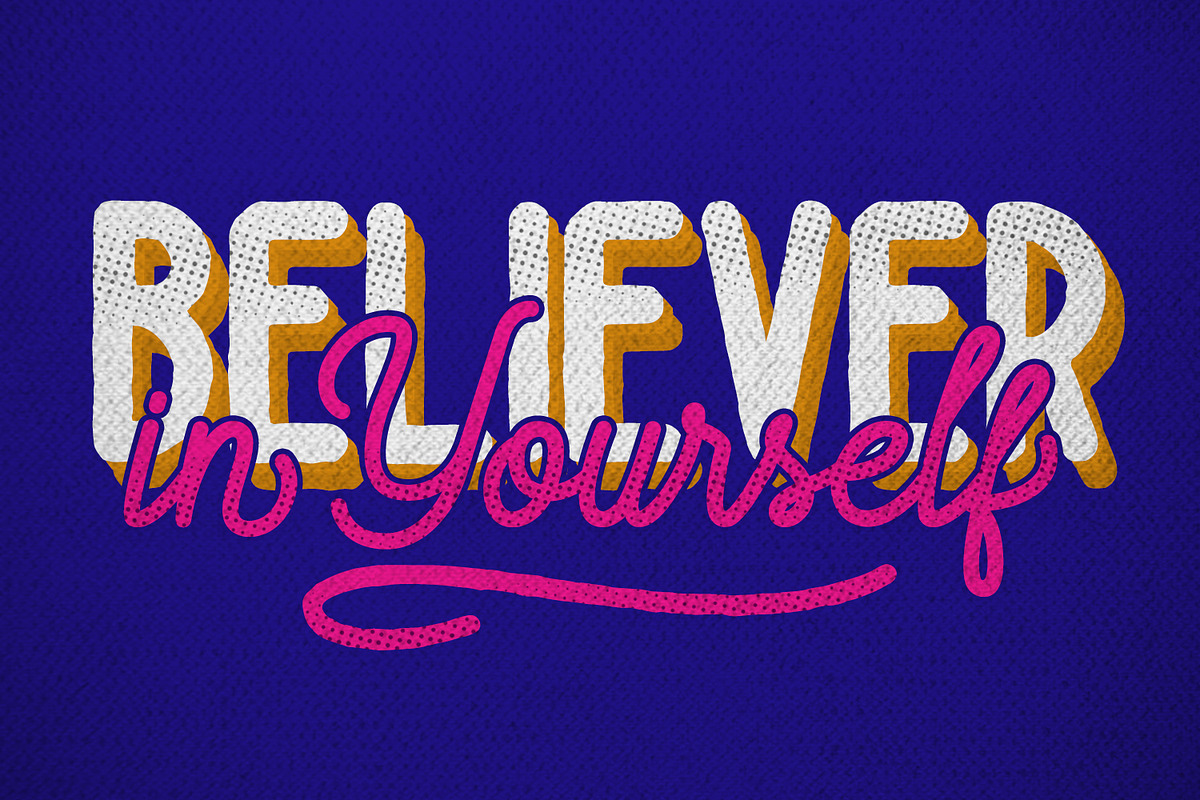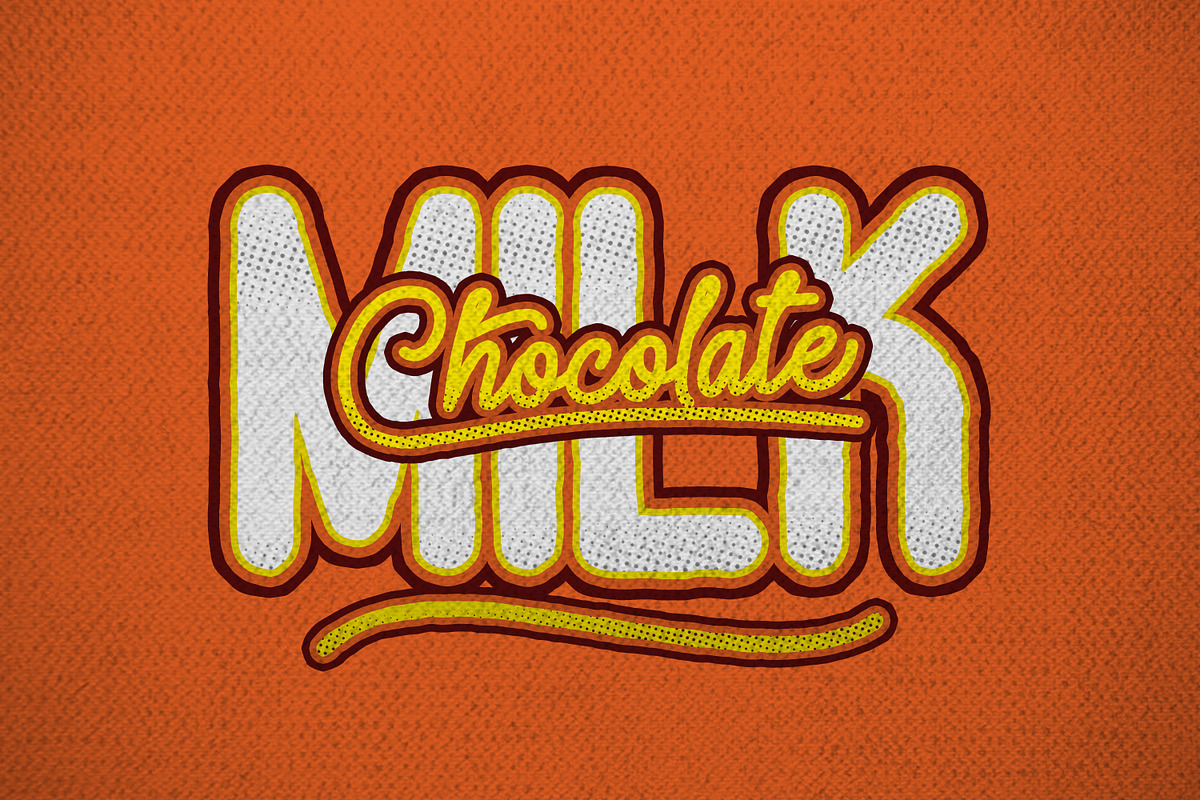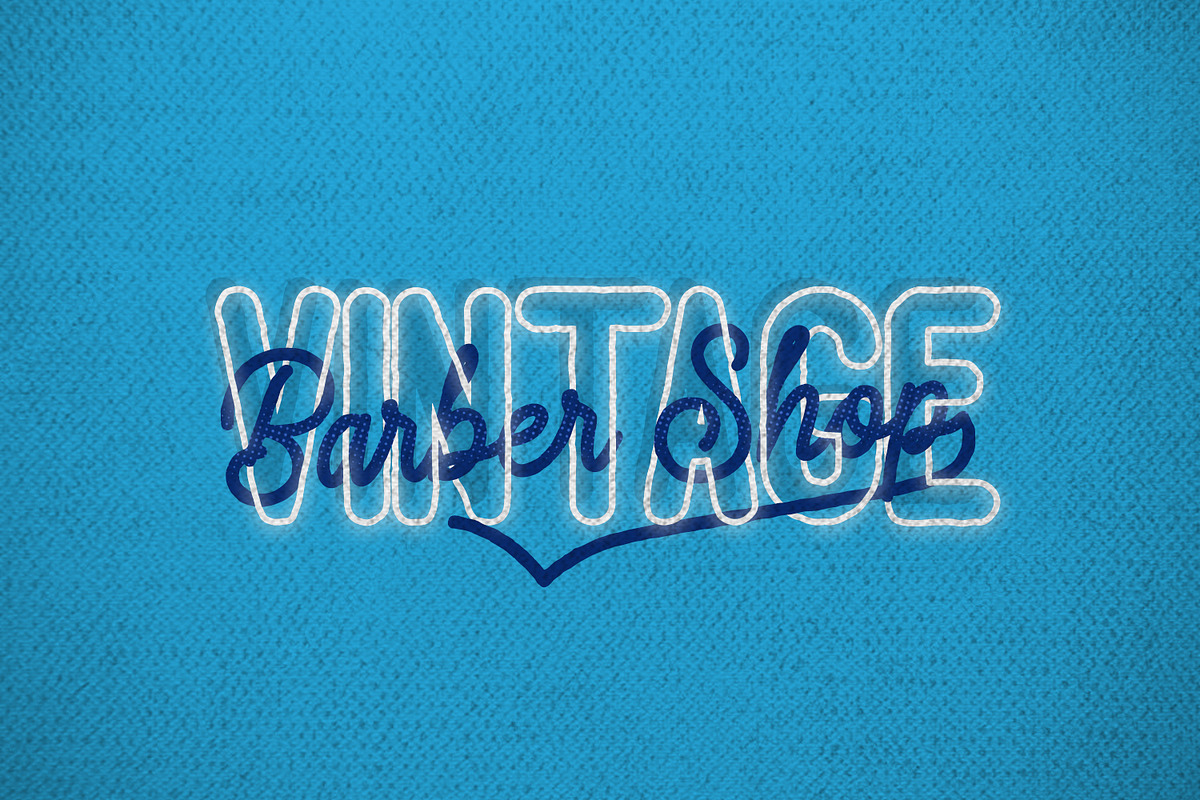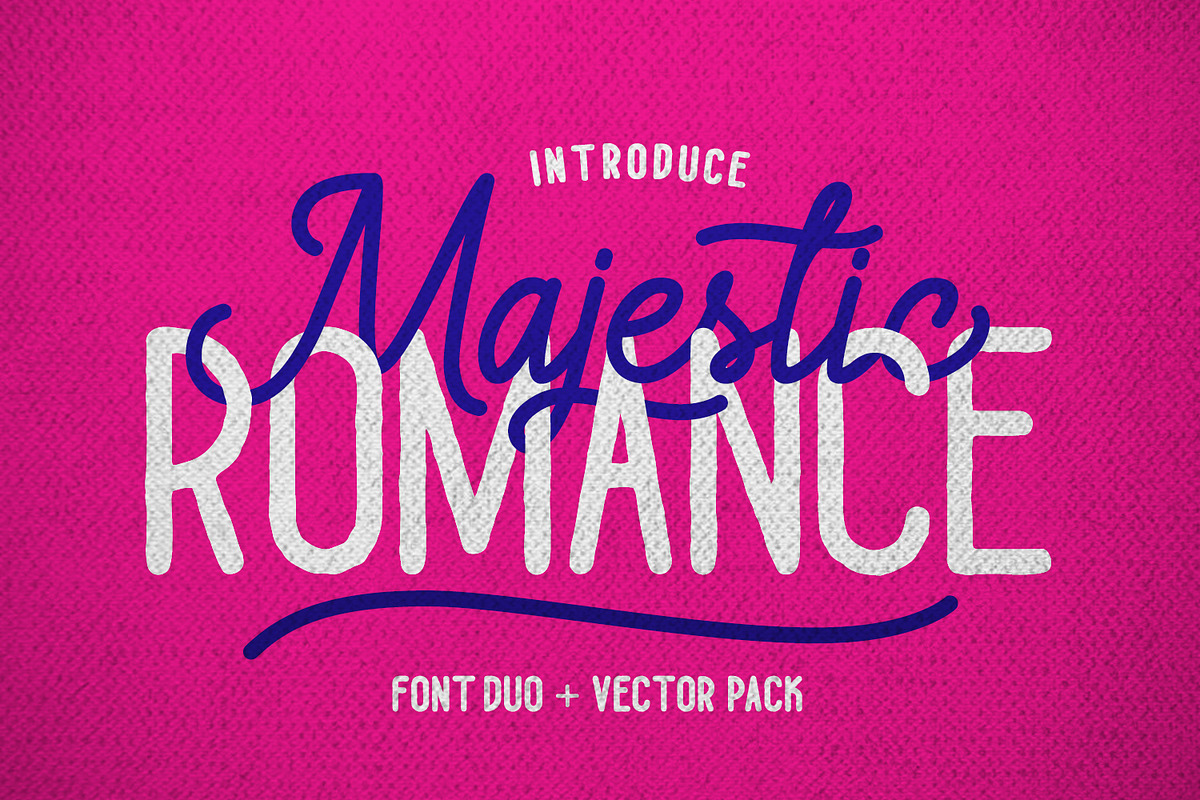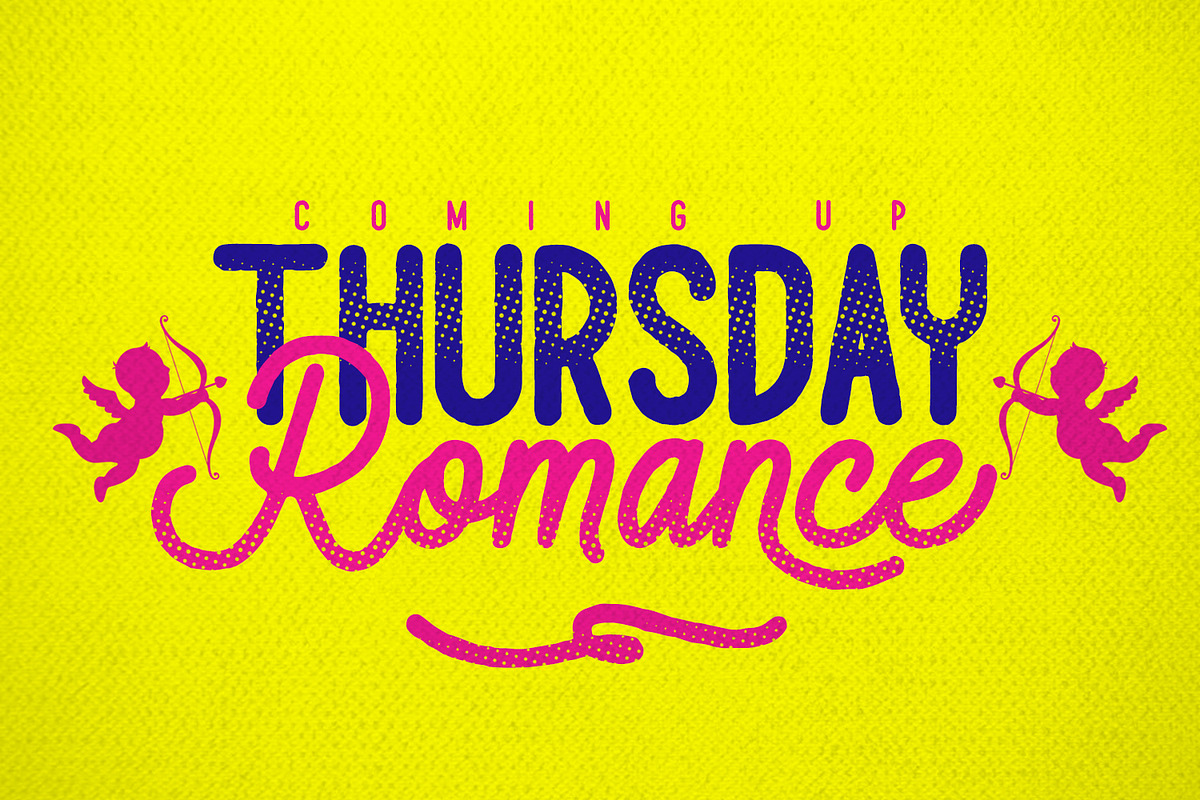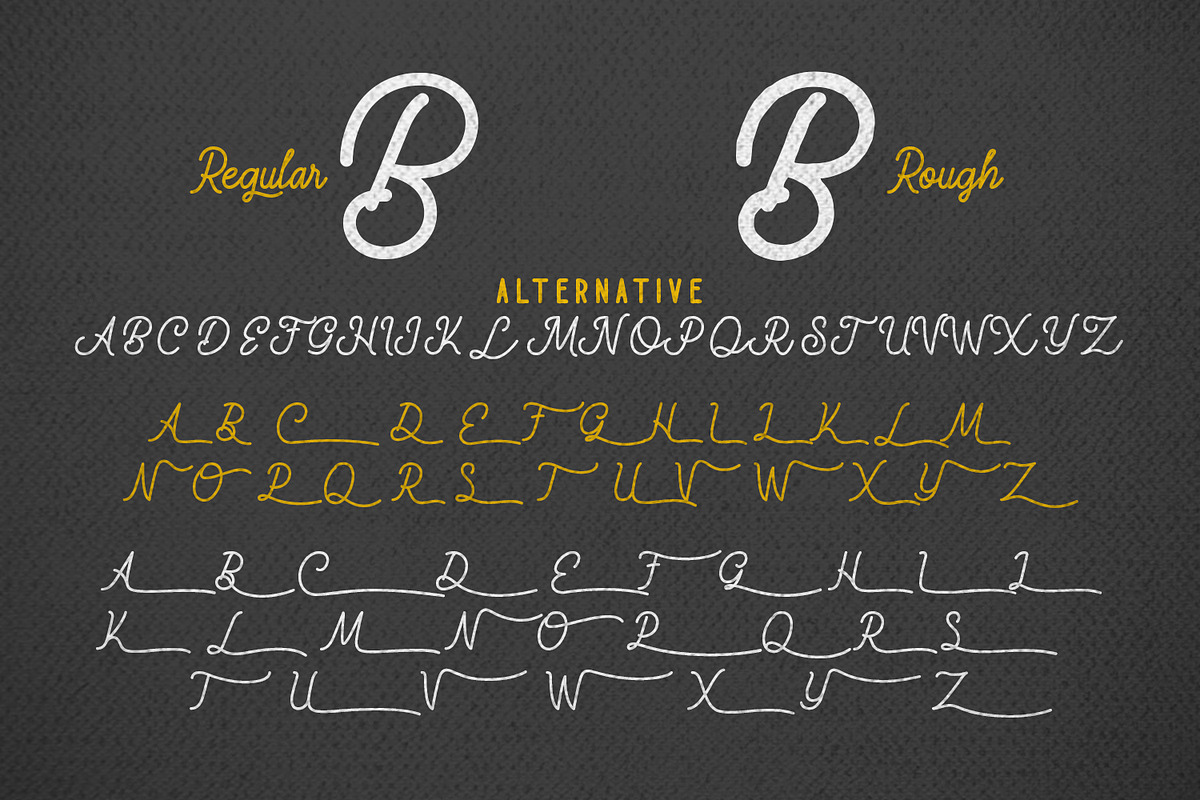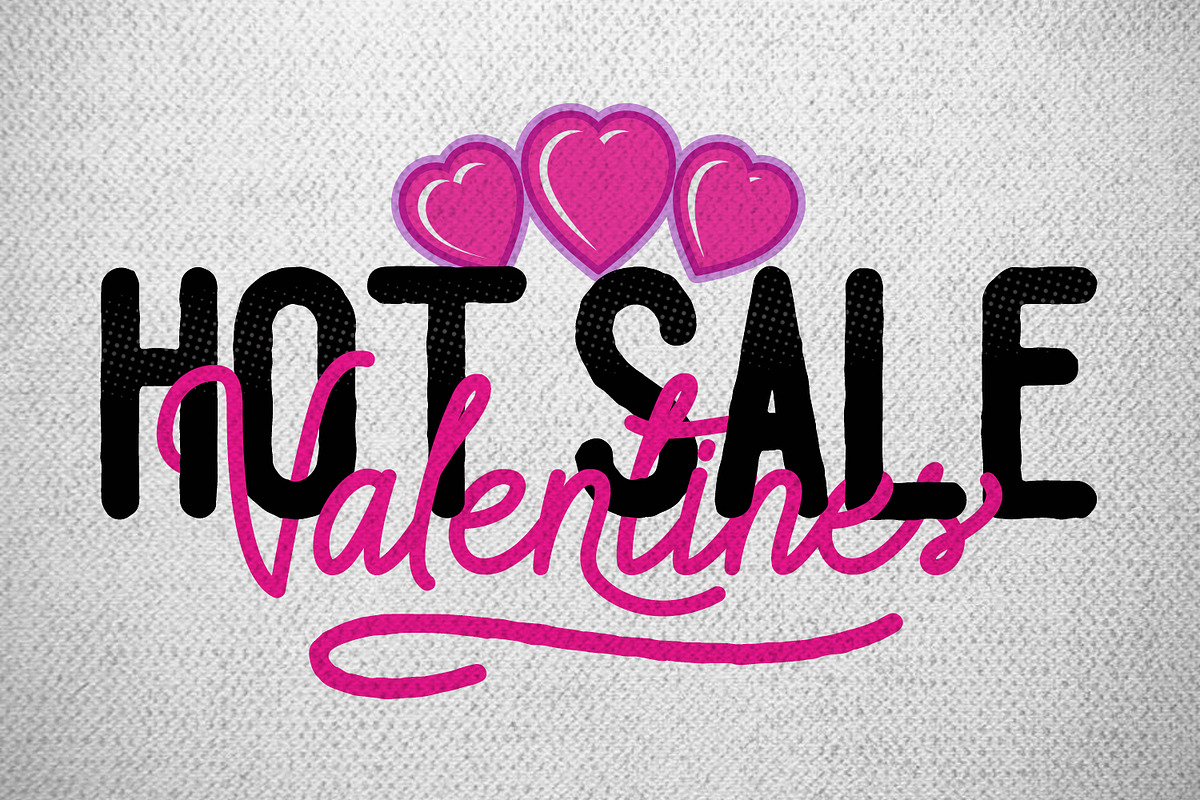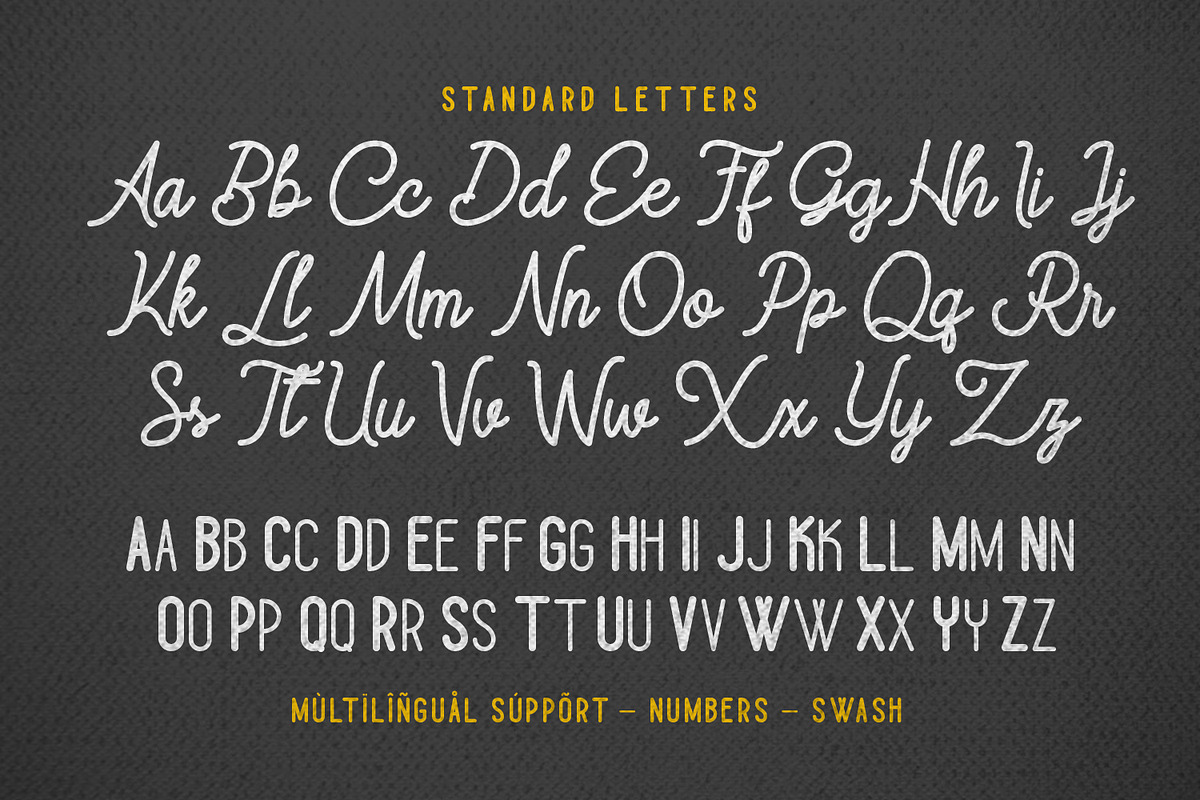
Majestic Romance - Font Duo
Really excited to introduce Majestic Romance is gorgeous duo monoline font script and sans serif font with two variation regular, rough. Majestic Romance perfect for poster design, book covers, merchandise, fashion campaigns, newsletters, branding, advertising, magazines, greeting cards, album covers, and quote designs and more.
- Majestic Romance Script Regular
- Majestic Romance Script Rough
- Majestic Romance Sans Serif
- Majestic Romance Sans Serif Rough
- Majestic Romance Swash
- Majestic Romance Swash Rough
Why Majestic Romance - Font Duo is worth a look
Majestic Romance - Font Duo by madeDeduk fits naturally into Branding, posters, packaging, typography.